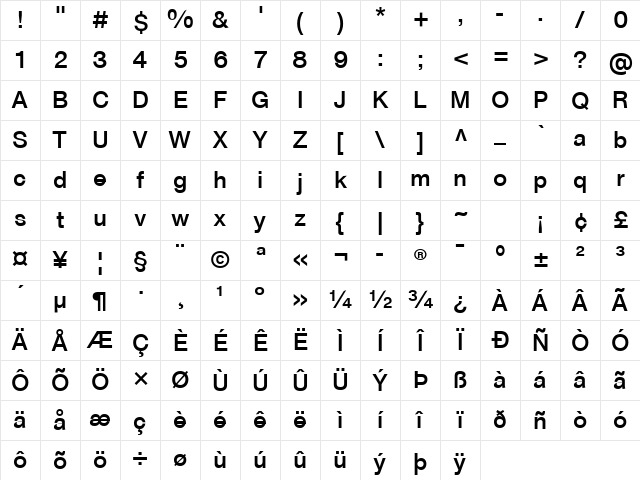
Medium Regular
Foundry: Monotype Imaging Inc.
Designer: Max Miedinger, Charles Nix, Monotype Studio, Jan Hendrik Weber
Design Context for Medium
Medium is a composed and adaptable typeface that performs quietly and consistently across a wide range of design contexts.